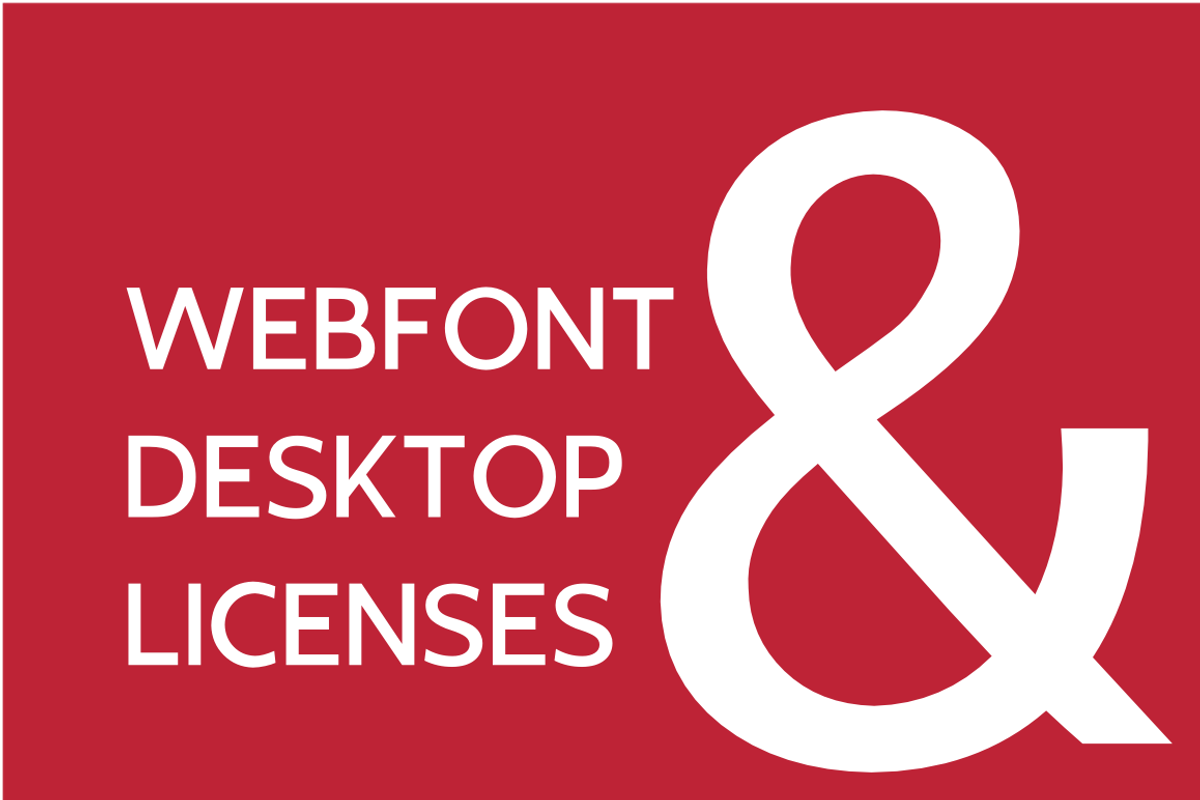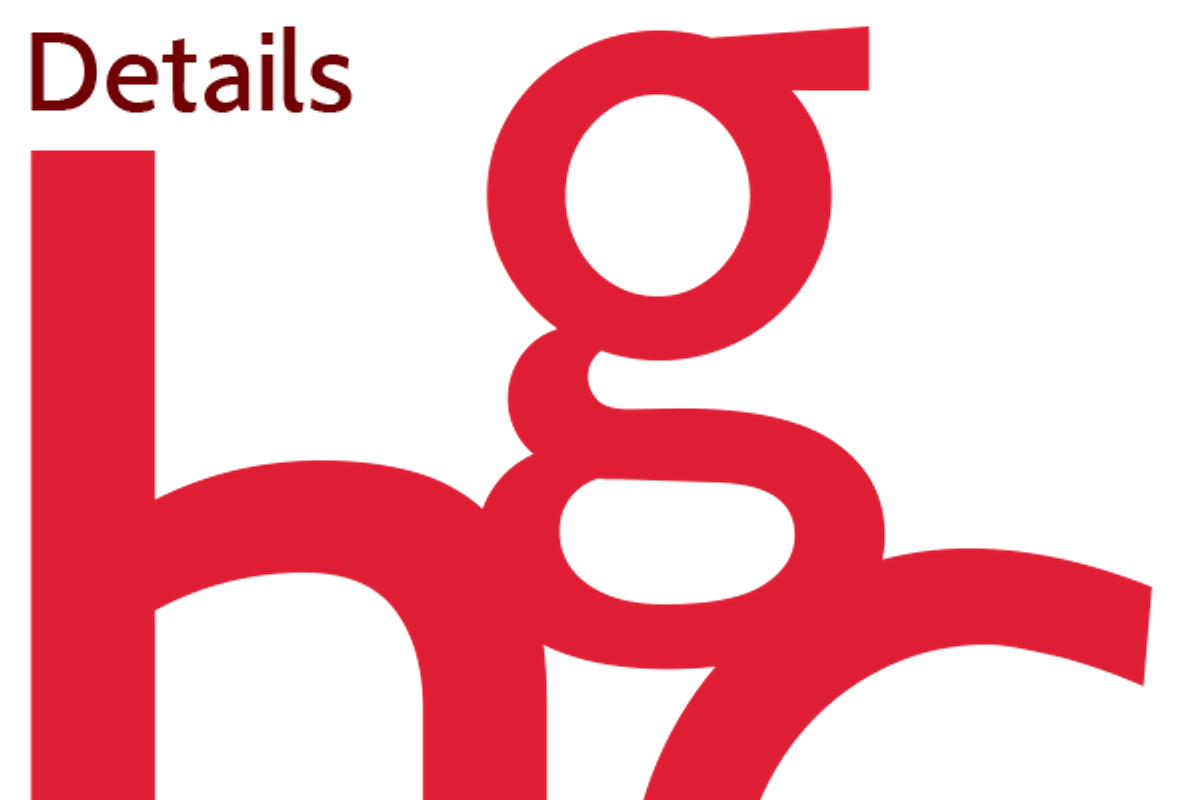
Panjo Desktop & Web font
Panjo Desktop & Web font by Alvotype is a font selected for branding, posters, packaging, typography.
- //DESKTOP & WEB FONT READY ~ LICENSES INCLUDED// Panjo it's a humanist font inspired by the amazing types of Eric Gill.
Why Panjo Desktop & Web font is worth a look
Panjo Desktop & Web font by Alvotype fits naturally into Branding, posters, packaging, typography.